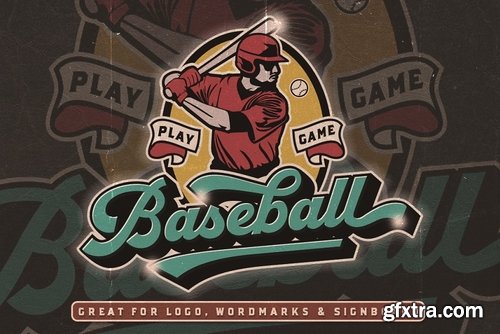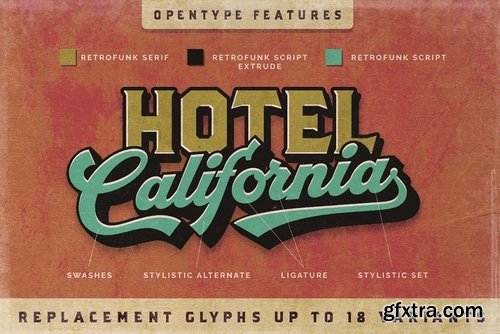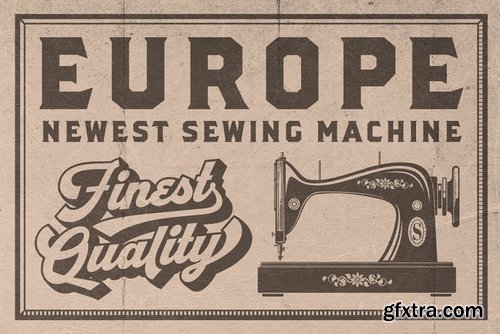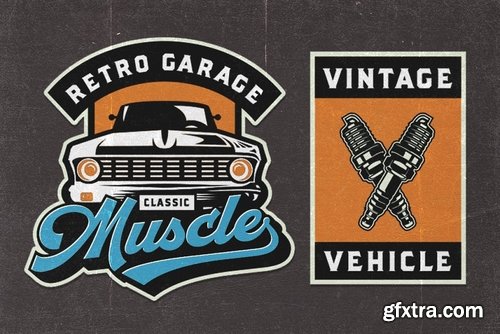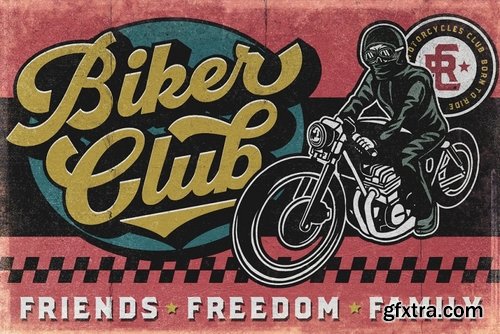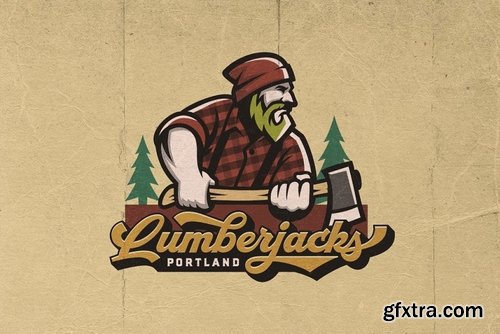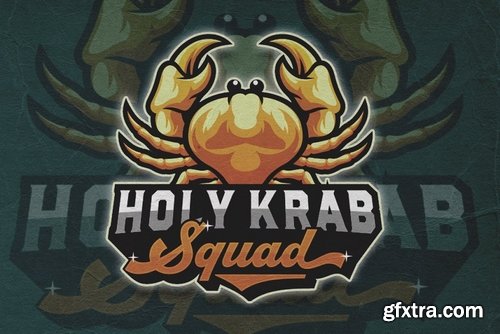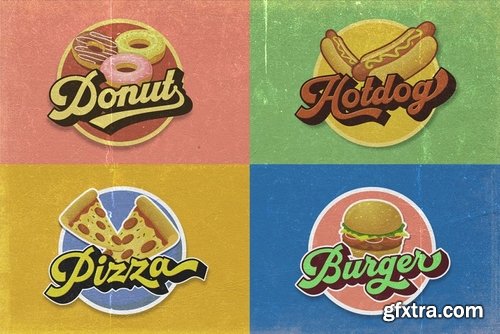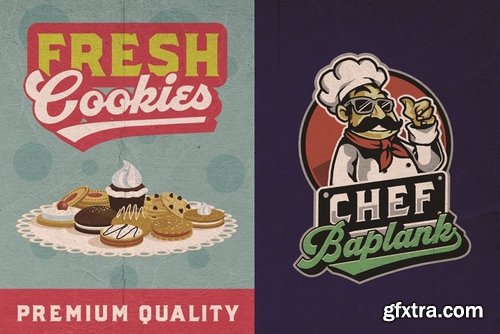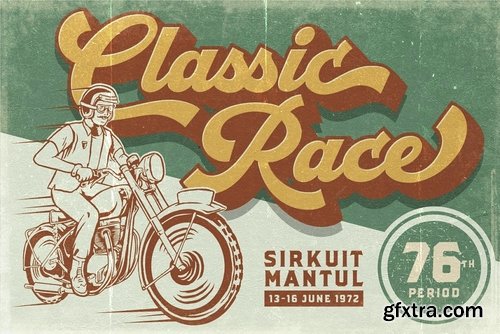
CM - Retrofunk - Script & Serif 3871035
Both Script and Serif font are a great combination for creating a logo, signboard or a simple wordmark. Hundred of Alternates with PUA Unicode are packed inside Retrofunk Script. Those alternate characters will help you to create a bold, strong, artistic and variative typography design for Flyers, Poster Ads, T-Shirt, Book Cover, Titles or any retro or vintage typography.